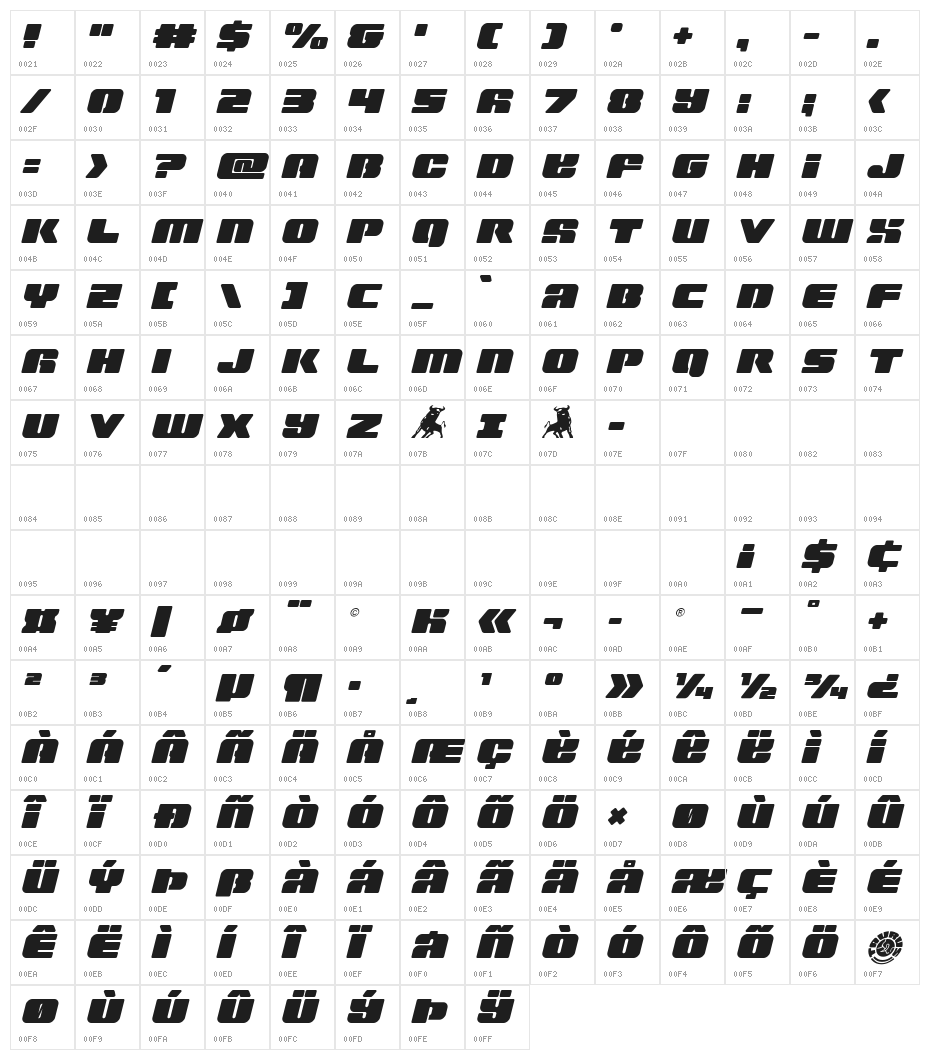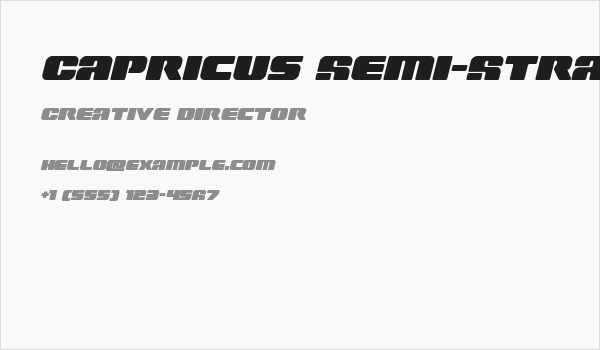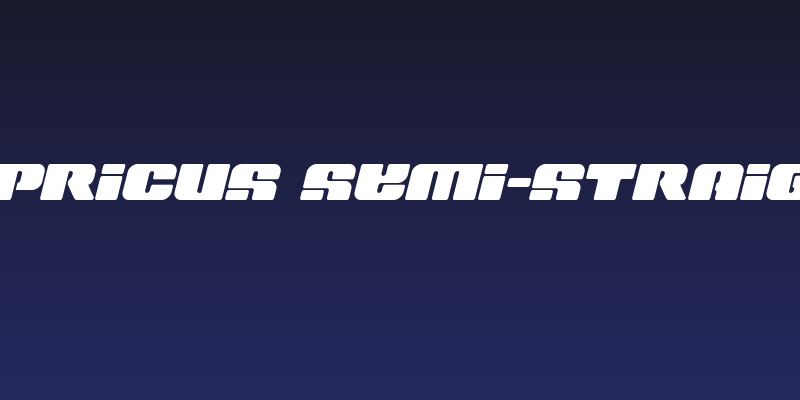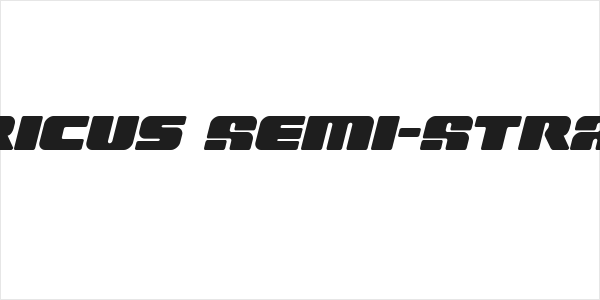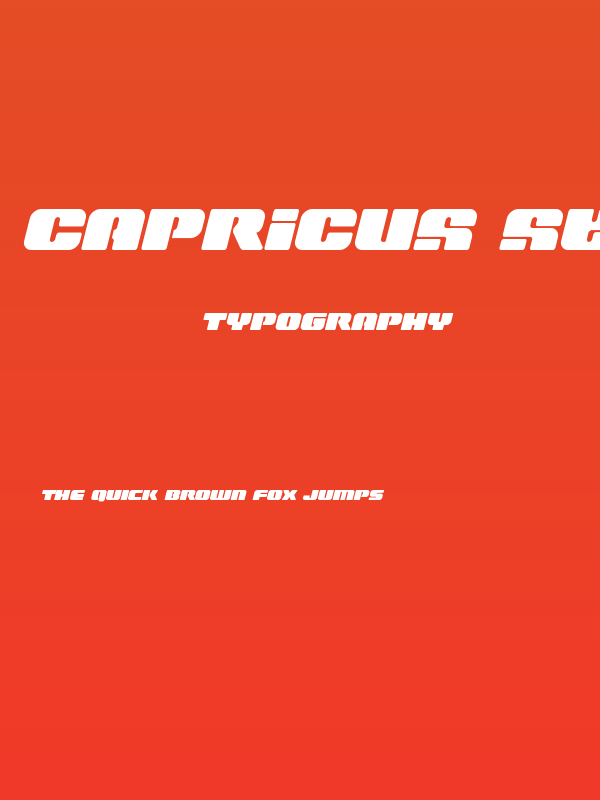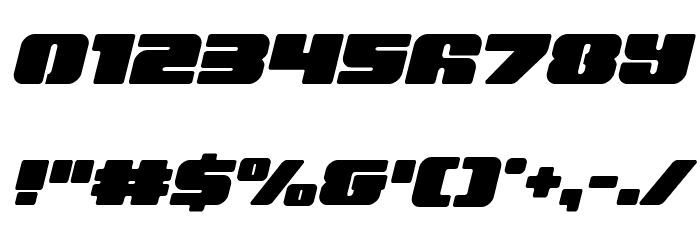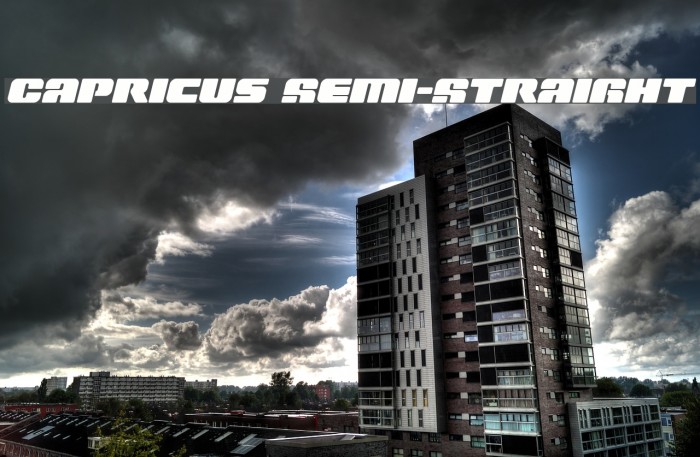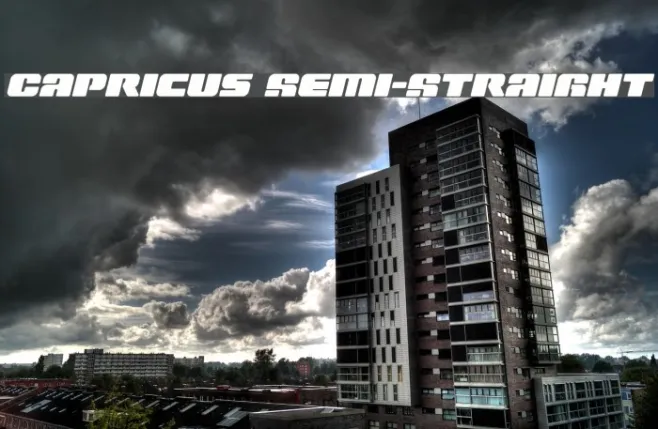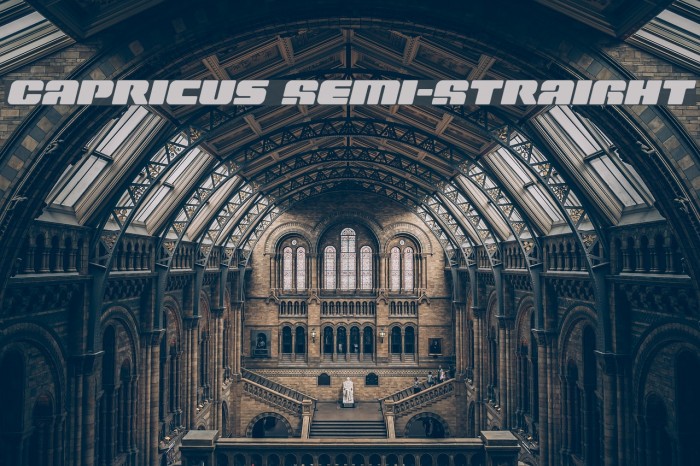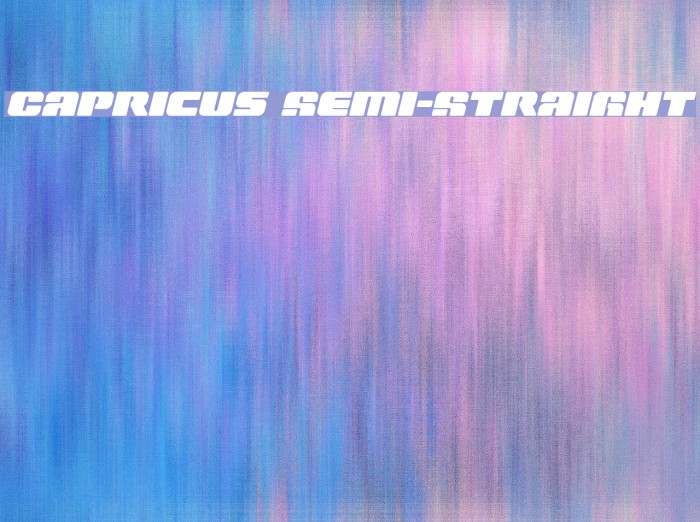
Capricus Semi-Straight Font
Capricus Semi-Straight Description
This font features a bold and dynamic style with a futuristic and geometric design. The characters are constructed with thick, solid strokes and have a semi-straight appearance, giving them a unique and modern look. The uppercase and lowercase letters maintain a consistent width, contributing to a uniform and cohesive appearance. The numerals and special characters follow the same design principles, ensuring a harmonious overall style. The font's boldness and distinctive shapes make it suitable for attention-grabbing headlines and creative projects.
CAPRICUS-SEMI-STRAIGHT UPPERCASE
CAPRICUS-SEMI-STRAIGHT LOWERCASE
CAPRICUS-SEMI-STRAIGHT OTHER CHARS
| Proposed Projects | Ideal for sci-fi themed designs, video game graphics, posters, and branding that requires a modern and bold aesthetic. |